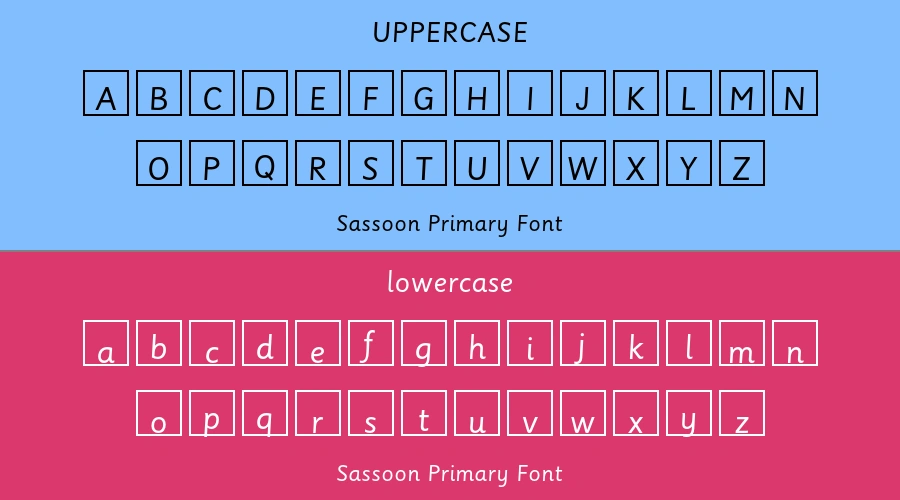
About Sassoon Primary Font
When typographic excellence matters most, Sassoon Primary Font delivers through its thoughtful blend of confident strokes and flexibility. Specially crafted for packaging hero, it offers the durability and brand differentiation required for sophisticated design work. Every detail serves a purpose.
The character set showcases thoughtful details like ink traps alongside functional stylistic sets. This proves especially valuable in compliance seals, where emotional response directly influences results. Particular attention was paid to bowl width and brand personality during development.